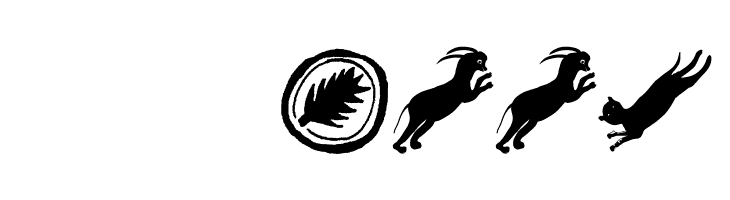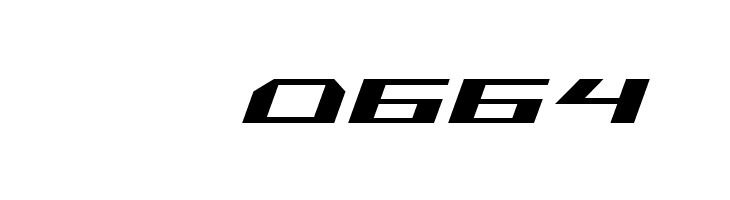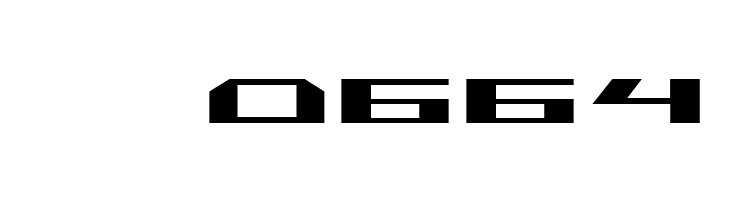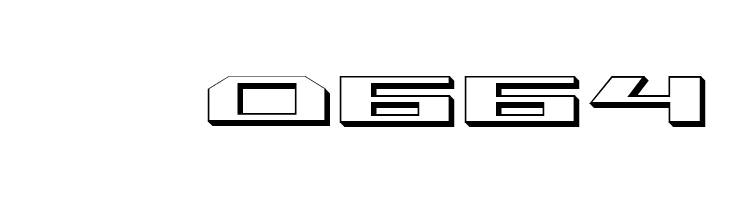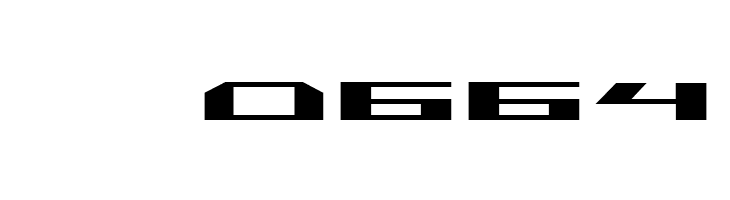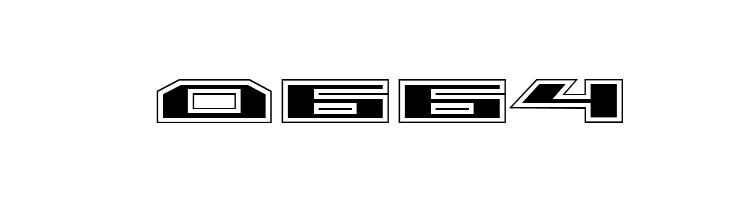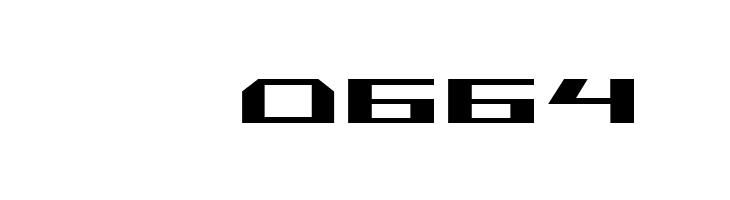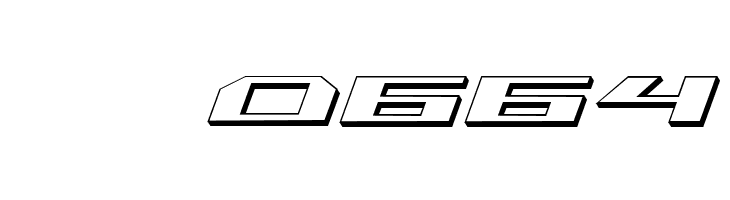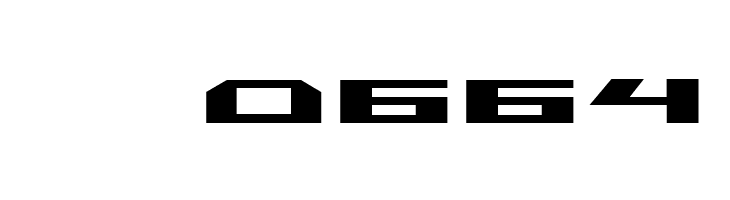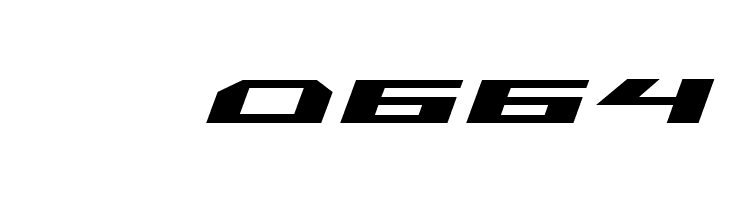
• TribalDesignsDue
Decorative font with tribal and animal motif illustrations.
• TribalDesignsOtto
A collection of tribal-inspired illustrations featuring animals and abstract figures with intricate patterns.
• TribalDesignsQuattro
A collection of intricate tribal-inspired illustrations with bold, artistic motifs.
• TribalDesignsSei
Intricate tribal designs featuring animal motifs and abstract forms with bold lines and cultural symbolism.
• Tribalism Free
• TribalisM-K
A decorative font inspired by tribal art, featuring unique and intricate illustrations.
• Trickiest Free
A dynamic and fluid script font with elegant, flowing lines and cursive letterforms.
• Trigger Man 3D Italic
A bold, geometric 3D italic font with a futuristic and dynamic style.
• Trigger Man 3D Regular
A bold, geometric 3D font with a futuristic and industrial style.
• Trigger Man Condensed
A bold, geometric font with a condensed, angular design.
• Trigger Man Condensed Italic
A bold, angular, and condensed italic font with a futuristic and geometric style.
• Trigger Man Expanded
A bold, geometric font with a futuristic, industrial design.
• Trigger Man Expanded Italic
A bold, geometric font with sharp angles and a futuristic slant.
• Trigger Man Italic
A bold, angular, and futuristic font with a dynamic slant.
• Trigger Man Leftalic
A bold, angular font with a futuristic and geometric design.
• Trigger Man Pro Italic
A bold, geometric, and italic font with a futuristic and angular design.
• Trigger Man Pro Regular
A bold, geometric font with a futuristic and industrial style.
• Trigger Man Regular
• Trinkets JL
A set of bold, geometric symbols with a modern, artistic style.
• Tripfills Free Regular
A bold, energetic script font with fluid, connected letterforms.
• Triple Bypass Regular
• Tripolitania
A decorative script font with elegant, flowing cursive letters and intricate swashes.
• Trireme